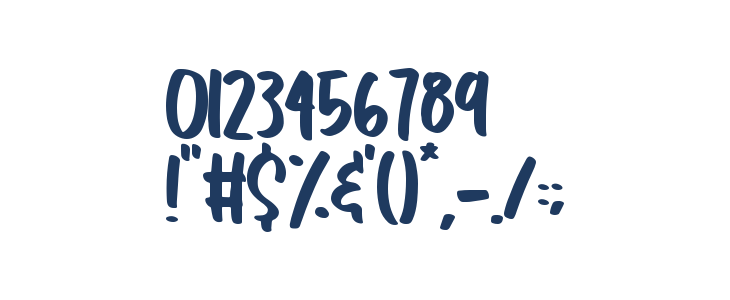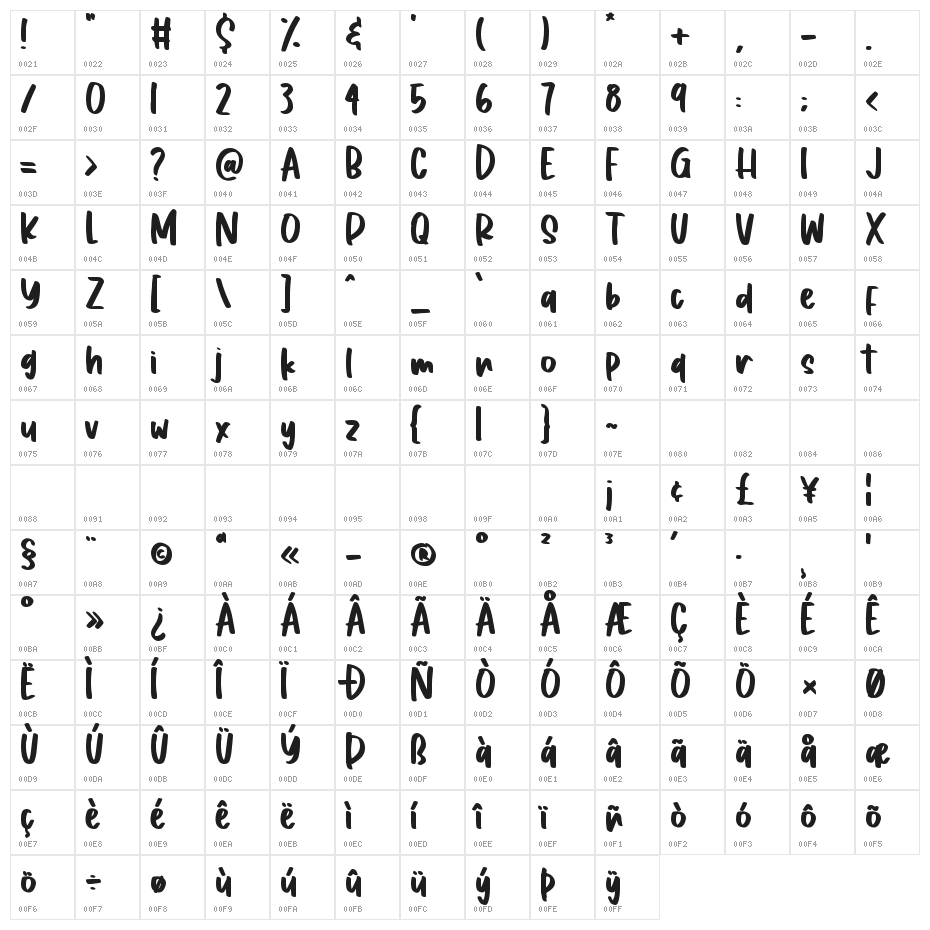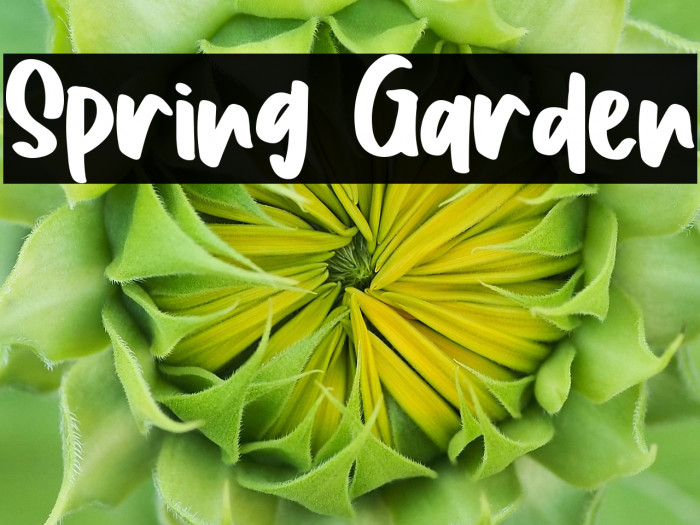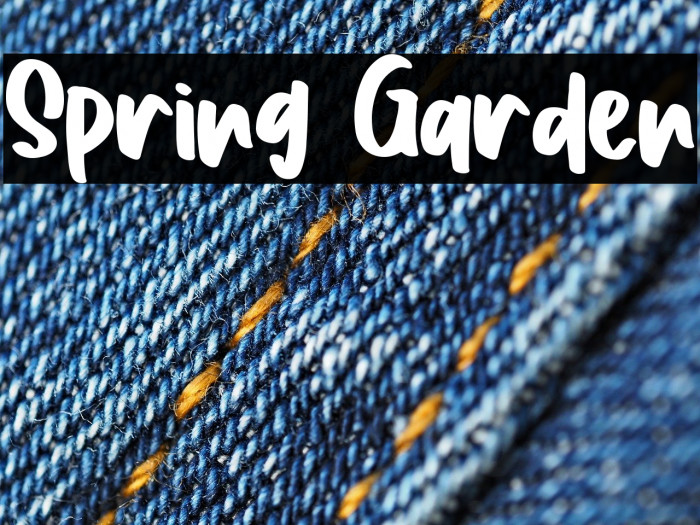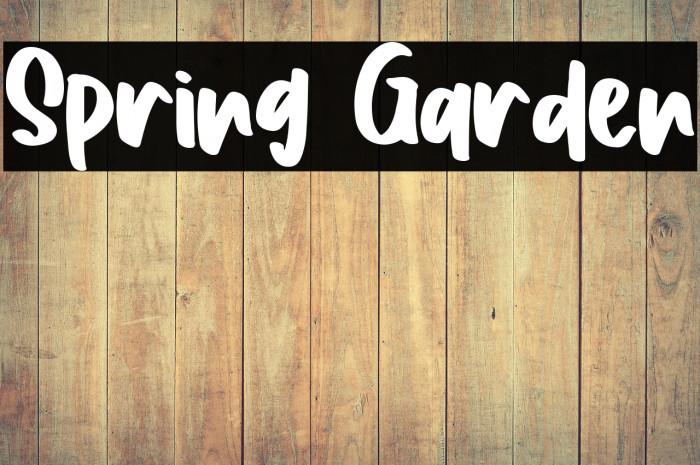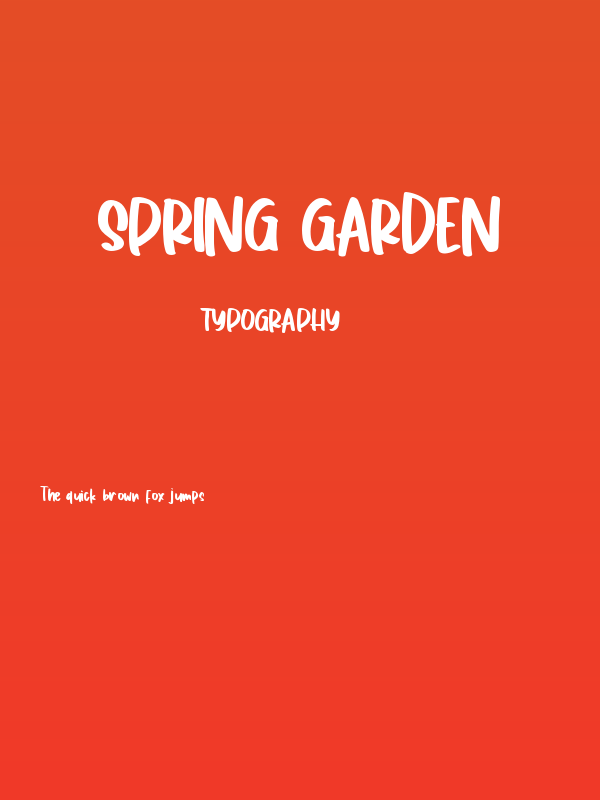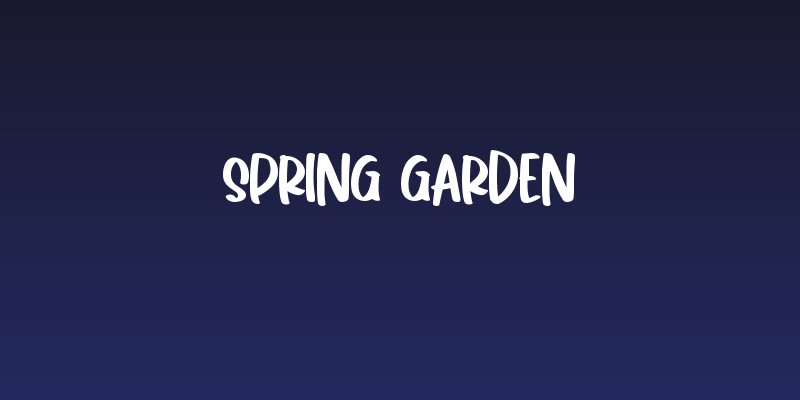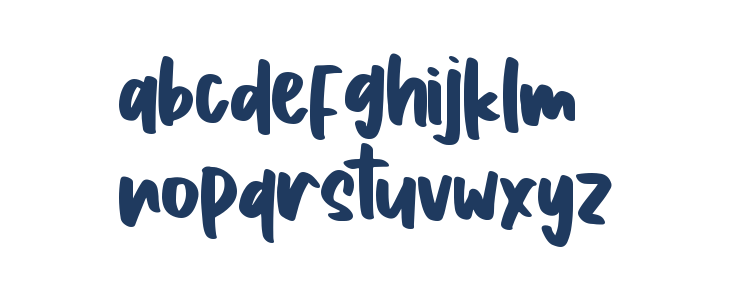
Spring Garden Font
Spring Garden Description
This font features a playful and bold handwritten style, characterized by its thick strokes and rounded edges. The letters are slightly irregular, giving it a casual and friendly appearance. The uppercase and lowercase letters maintain a consistent style, with a noticeable bounce in the baseline that adds to its charm. The numerals and special characters are equally bold and maintain the same playful aesthetic, making them stand out. This font is perfect for projects that require a personal touch or a fun, informal vibe.
| Overall Style | Casual |
| Proposed Projects | Ideal for greeting cards, children's books, posters, and social media graphics. |